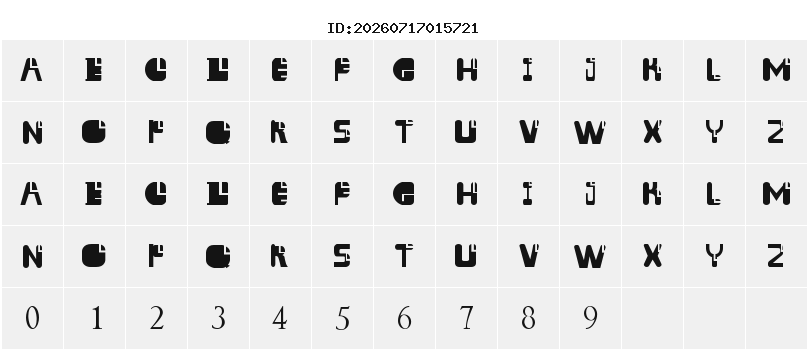
About AISSUR.ttf
AISSUR.ttf is a modern, elegant sans-serif font designed for ultimate readability and visual harmony. Perfect for branding, headlines, web design, and print materials.